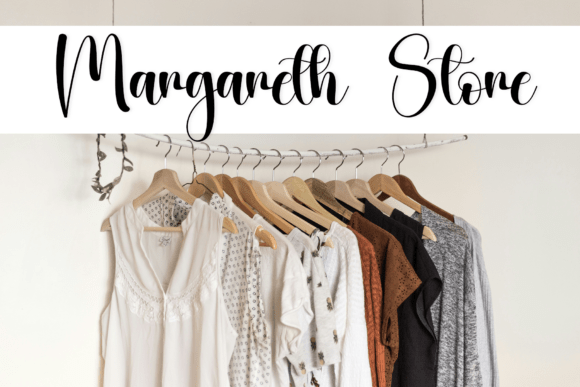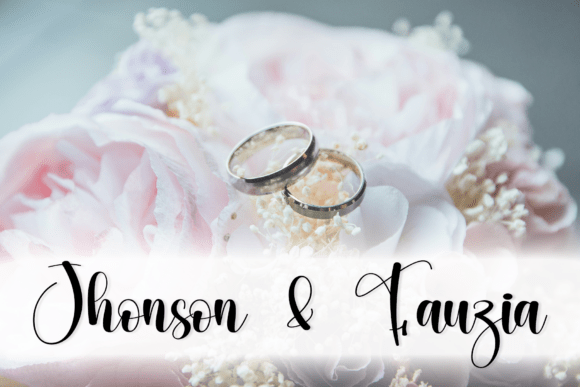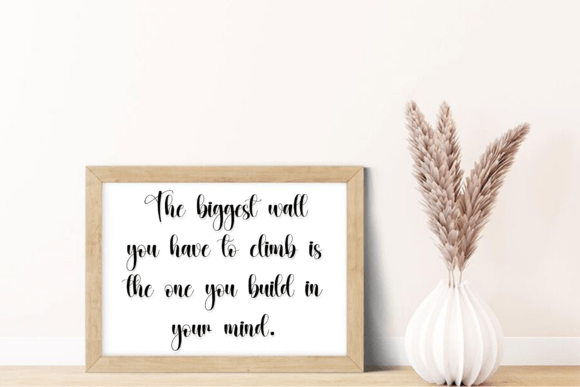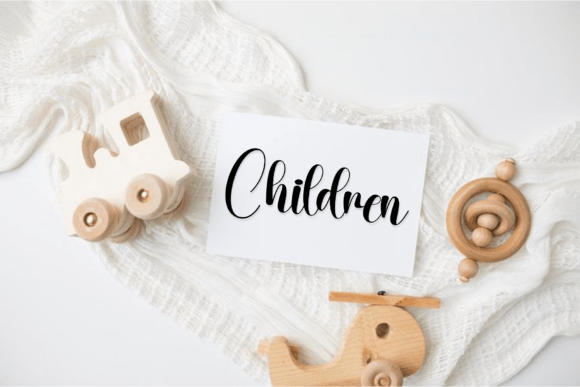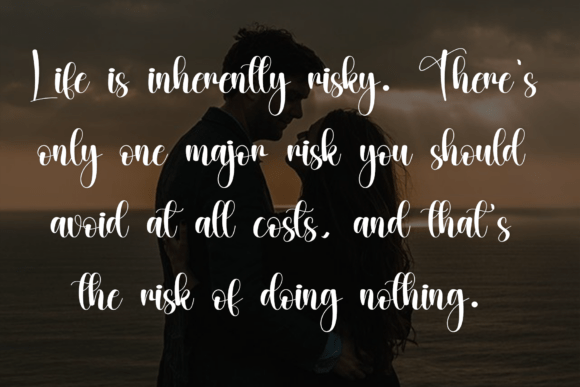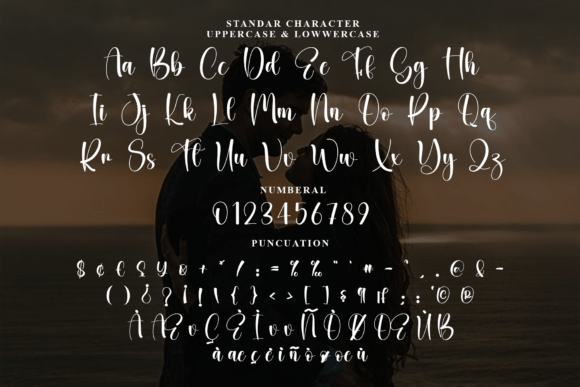
Introducing Bigmovie Font: Elevate Your Designs with Luxurious Elegance
In the world of typography, few fonts manage to convey the essence of luxury and sophistication as effortlessly as Bigmovie. This stunningly elegant and highly refined modern handwritten script font is designed to bring a touch of professional artistry to your designs, making it ideal for high-end branding, elegant stationery, and upscale digital projects. With its dramatic contrast between thick downstrokes and delicate hairlines, beautifully integrated ligatures and swashes, Bigmovie is the perfect choice for designers and crafters looking to add a personalized and luxurious feel to their work.
The Artistry of Bigmovie Font
Bigmovie font is a masterpiece of modern calligraphy, boasting a unique and professional quality that is reminiscent of a skilled calligrapher’s work. Its elegant and refined appearance is characterized by:
- Dramatic Contrast: The font features a striking contrast between thick downstrokes and delicate hairlines, adding depth and sophistication to your designs.
- Beautiful Ligatures and Swashes: Bigmovie includes beautifully integrated ligatures and swashes that enhance its elegance and make it perfect for creating stunning headlines, titles, and quotes.
- Modern Handwritten Script: The font’s modern handwritten script style gives it a fresh and contemporary feel, making it suitable for a wide range of design applications, from luxury branding to elegant wedding stationery.
Perfect for High-End Branding and Design Projects
Bigmovie font is specifically designed to meet the needs of designers and crafters working on high-end branding and design projects. Its luxurious and sophisticated appearance makes it an excellent choice for:
- Luxury Branding: Create stunning logos, business cards, and marketing materials that exude elegance and sophistication.
- Elegant Stationery: Design beautiful wedding invitations, thank-you cards, and other stationery items that showcase your attention to detail and commitment to quality.
- Upscale Digital Projects: Use Bigmovie font to create engaging and sophisticated digital content, such as website headers, social media graphics, and video titles.
Why Choose Bigmovie Font?
With so many fonts available, why choose Bigmovie for your design projects? Here are just a few reasons:
- Unique and Professional Quality: Bigmovie font offers a distinctive and professional quality that sets it apart from other fonts.
- Highly Versatile: The font’s modern handwritten script style makes it suitable for a wide range of design applications.
- Elegant and Sophisticated: Bigmovie’s luxurious appearance is perfect for designers and crafters looking to add a touch of elegance and sophistication to their work.
Tips for Using Bigmovie Font Effectively
To get the most out of Bigmovie font, here are a few tips to keep in mind:
- Use it Sparingly: Bigmovie font is best used sparingly to create a lasting impression. Use it for headlines, titles, and key messages to add emphasis and elegance.
- Experiment with Ligatures and Swashes: Take advantage of Bigmovie’s beautifully integrated ligatures and swashes to add visual interest and sophistication to your designs.
- Pair it with Complementary Fonts: Combine Bigmovie font with complementary fonts to create a cohesive and visually appealing design.
In conclusion, Bigmovie font is a stunningly elegant and highly refined modern handwritten script font that embodies professional artistry and luxury. Its dramatic contrast, beautiful ligatures and swashes, and modern handwritten script style make it the perfect choice for designers and crafters looking to add a personalized and sophisticated touch to their work. Whether you’re working on high-end branding, elegant stationery, or upscale digital projects, Bigmovie font is sure to elevate your designs and leave a lasting impression.